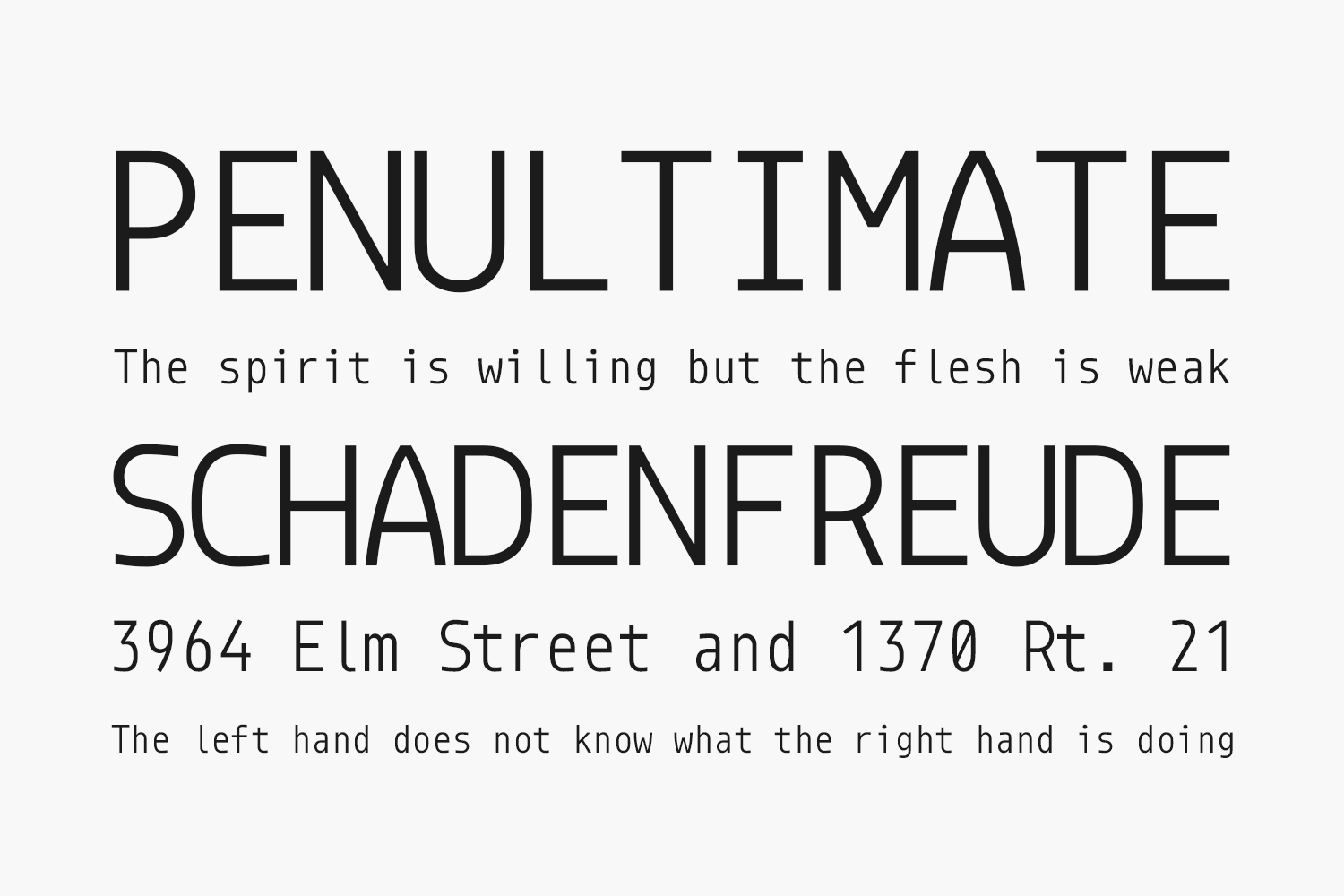
Monoid Free Font Family is customizable and optimized for coding with bitmap-like sharpness at this fontsize even on low res displays.
Designed by Andreas Larsen